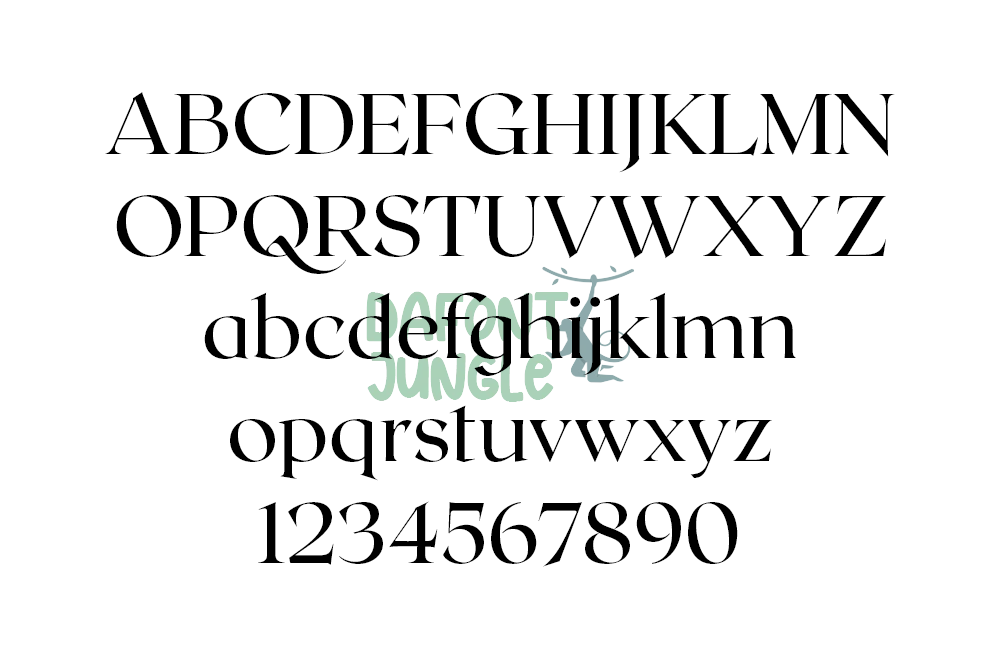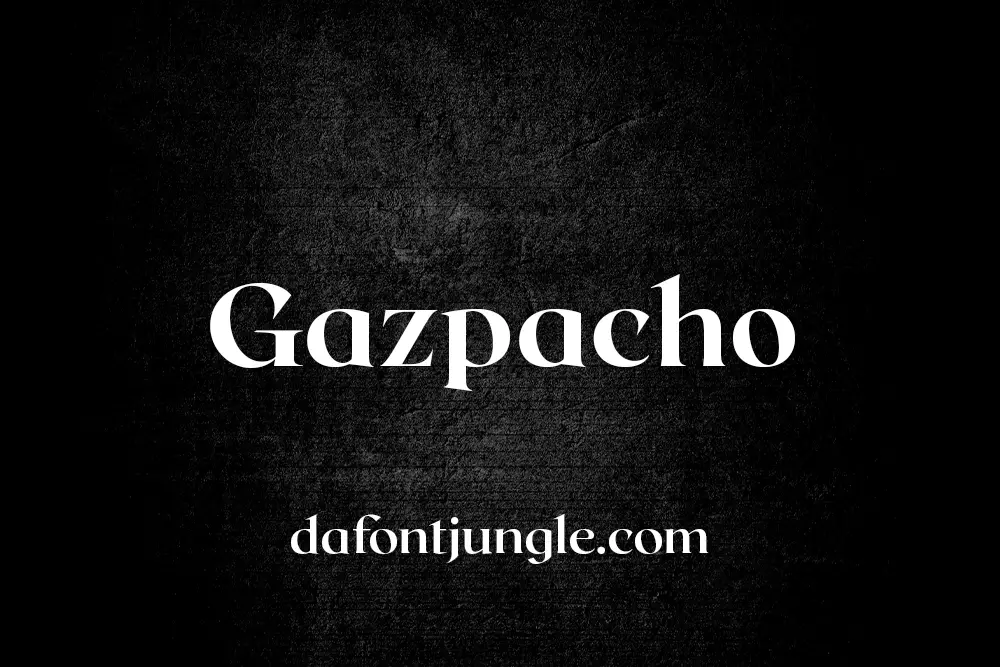
Roxborough – Elegant Serif Font with a Handwritten Touch
Roxborough is a stylish serif font inspired by calligraphy and handwriting. Its open shapes and soft curves create a smooth reading experience. A standout feature is the single-storey “a,” which gives the font a friendly and artistic look.
You can use Roxborough for many design projects. It works well for logos, packaging, branding, and display signs. The expressive italics add a creative feel, making your text look unique and personal.